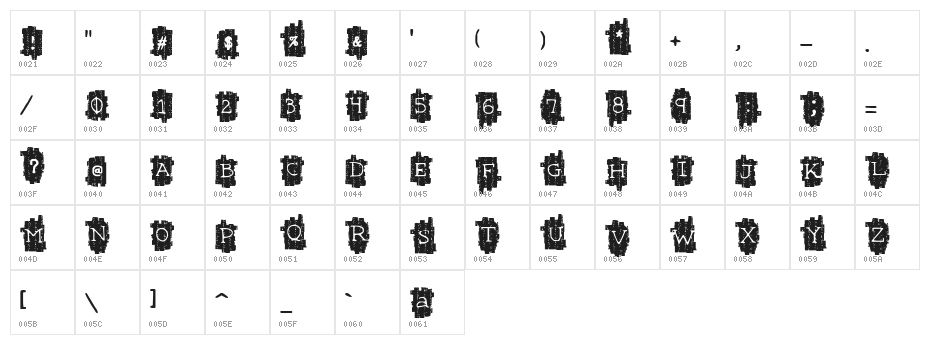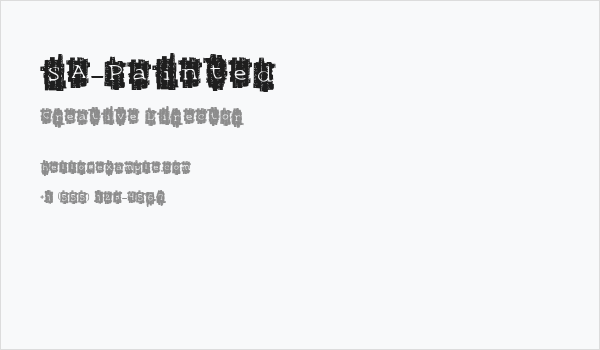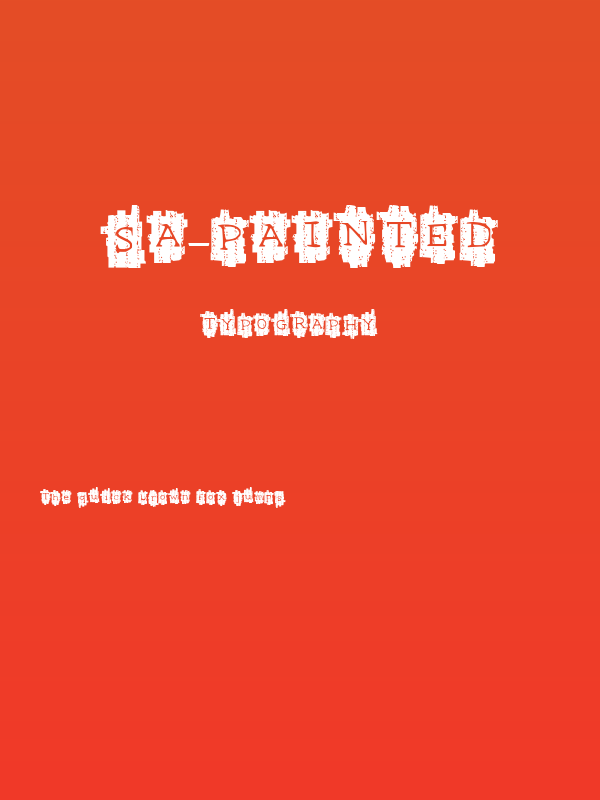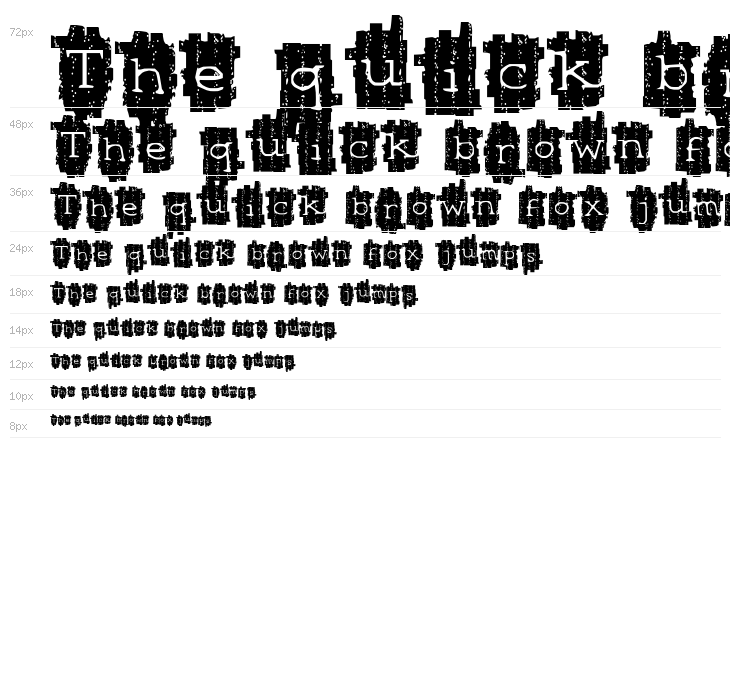
SA-Painted Font
SA-Painted Description
This font features a bold and artistic style, reminiscent of painted or stenciled lettering. Each character is encapsulated in a rough, textured square, giving it a distressed and urban look. The uppercase and lowercase letters maintain a consistent size and shape, emphasizing a uniform appearance despite the chaotic texture. The numbers and special characters follow the same design, ensuring a cohesive look across all glyphs. This font's unique style makes it stand out, ideal for projects that require a strong visual impact.
| Overall Style | Urban, Artistic, Distressed |
| Proposed Projects | Ideal for street art designs, posters, album covers, and branding that requires a bold statement. |